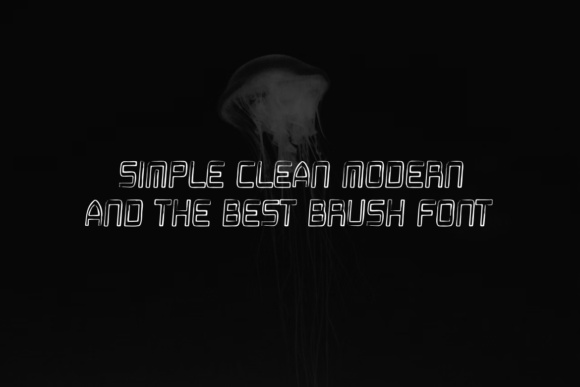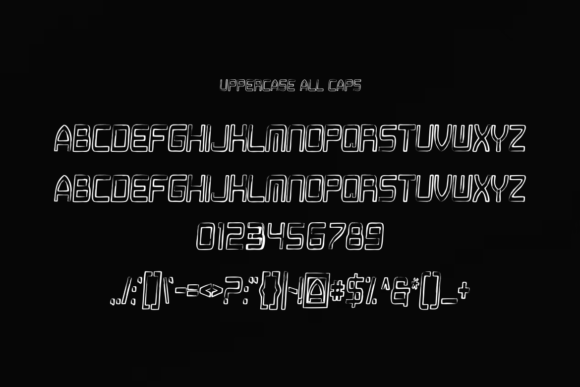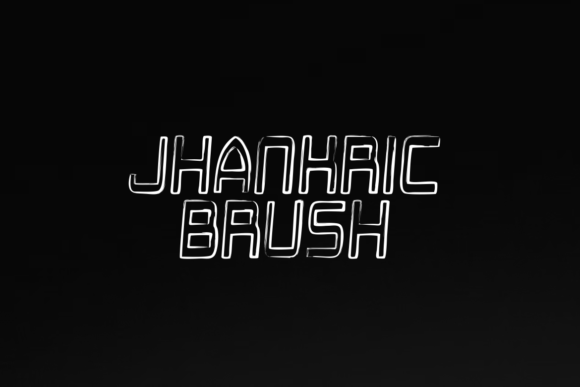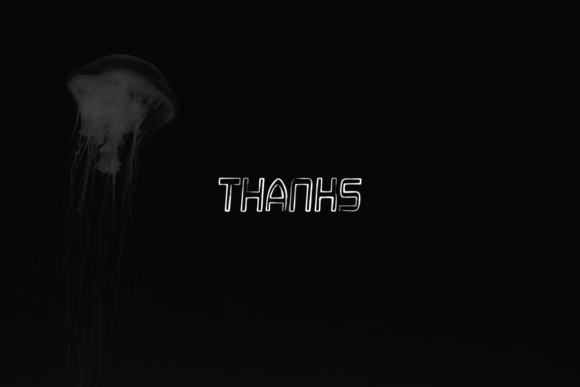
Introduction to Jhankric Brush Font
Jhankric Brush is a fun and lively brush font that looks like it was hand-painted.
It has bold, playful letters that add a creative touch to any project Perfect for designs needing an energetic and personal feel, like posters, invitations, or social media graphics.